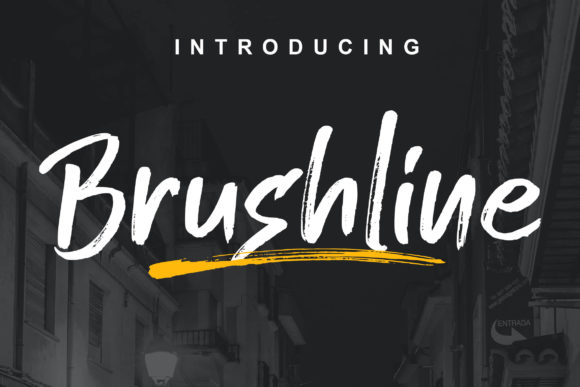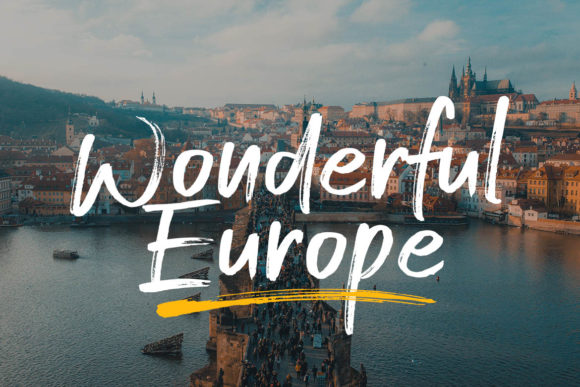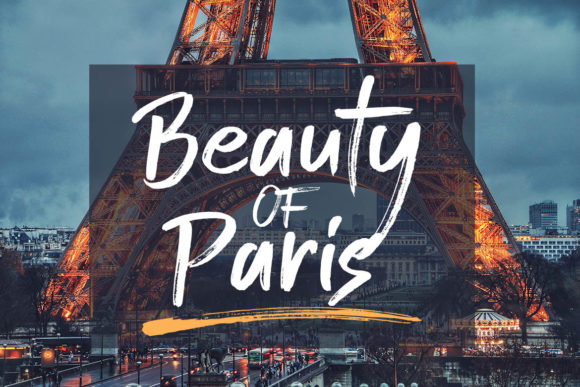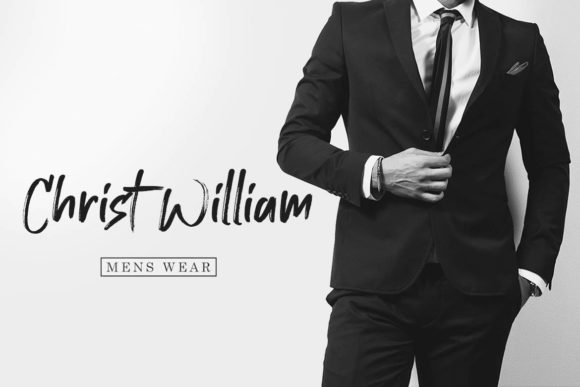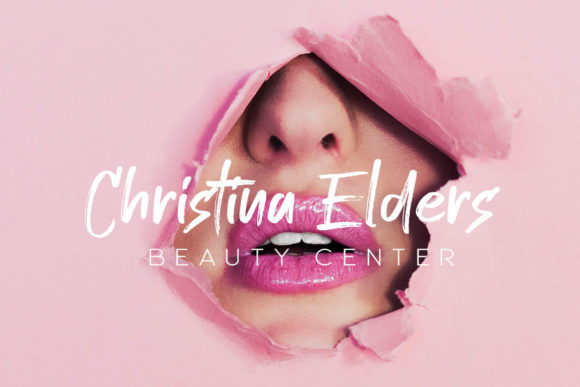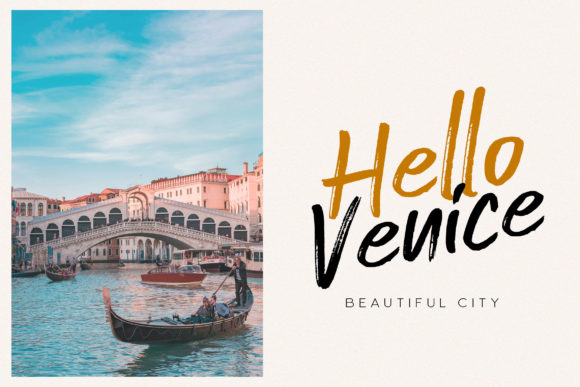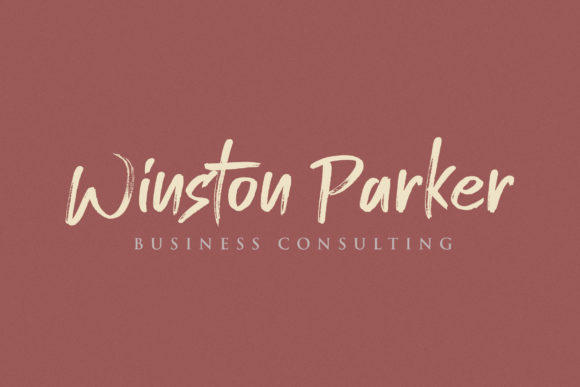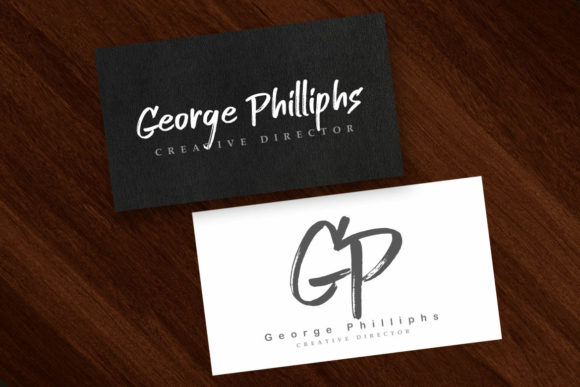
Brushline Font
About Brushline Font
Brushline is a raw and dynamic script that feels adventurous and authentic. Use it to take any design idea to the next level.